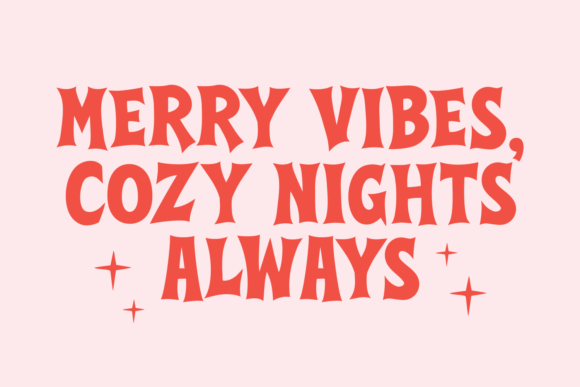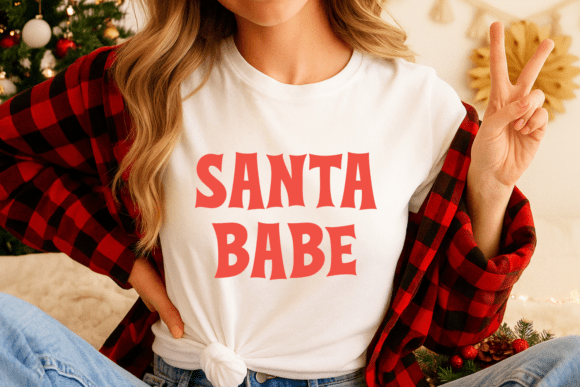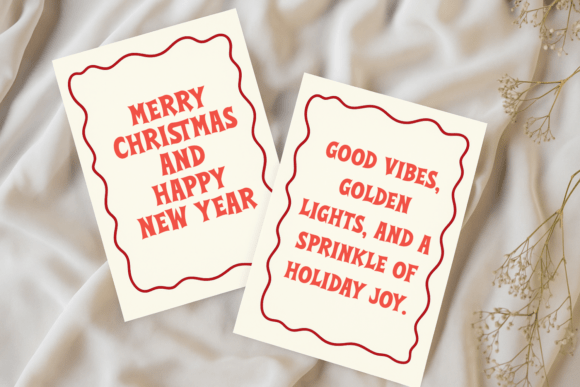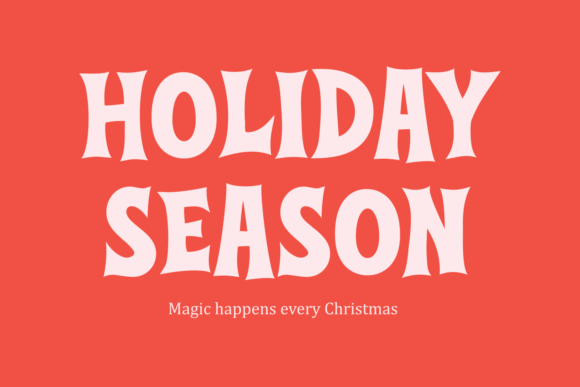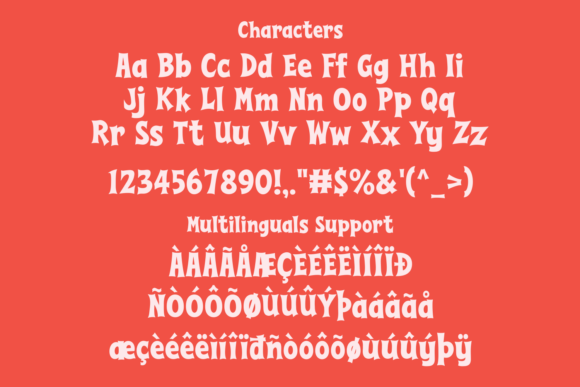
Christmas Dreaming Font: A Playful and Festive Display Font for Holiday Projects
As the holiday season approaches, designers and crafters are on the lookout for the perfect typography to add a touch of magic and nostalgia to their creative projects. If you’re looking for a font that embodies the warmth and joy of Christmas, look no further than the Christmas Dreaming Font. This playful and festive display font is designed to bring a smile to your face and a twinkle to your designs.
What is Christmas Dreaming Font?
Christmas Dreaming is a bold, wavy, and cheerful display font that’s perfect for adding a festive touch to your holiday projects. With its unique and playful shapes, this font is sure to capture the essence of the holiday season. Whether you’re designing Christmas cards, invitations, gift tags, posters, or cozy winter quotes, Christmas Dreaming Font is the perfect choice.
Key Features of Christmas Dreaming Font
- Playful and Festive: Christmas Dreaming Font is designed to bring a touch of playfulness and festivity to your designs. Its bold and wavy shapes are sure to add a cheerful charm to your projects.
- Perfect for Holiday Projects: This font is specifically designed for holiday projects, making it perfect for Christmas cards, invitations, gift tags, posters, and cozy winter quotes.
- Unique and Nostalgic: This font has a unique and nostalgic feel that’s sure to evoke memories of Christmases past. Its playful shapes and bold lines make it a standout in any design.
Uses for Christmas Dreaming Font
Christmas Dreaming Font is a versatile font that can be used in a variety of ways. Here are some ideas to get you started:
- Christmas Cards: Add a personal touch to your Christmas cards with this festive font. Use it for the main text or as a decorative element to add a touch of whimsy.
- Invitations: Create festive invitations for your holiday parties or events with Christmas Dreaming Font. Its playful shapes and bold lines are sure to grab attention.
- Gift Tags: Add a personal touch to your gifts with Christmas Dreaming Font. Use it to create custom gift tags that are sure to delight.
- Posters: Create eye-catching posters for your holiday events or promotions with this festive font. Its bold shapes and cheerful charm are sure to grab attention.
- Cozy Winter Quotes: Add a touch of warmth and coziness to your winter quotes with Christmas Dreaming Font. Its playful shapes and nostalgic feel are sure to evoke a sense of warmth and comfort.
Tips for Using Christmas Dreaming Font
Here are some tips for using Christmas Dreaming Font in your designs:
- Use it Sparingly: While Christmas Dreaming Font is a beautiful font, it’s best used sparingly. Use it as a headline or title font, and pair it with a simpler font for body text.
- Experiment with Colors: Christmas Dreaming Font looks great in a variety of colors, from traditional red and green to more modern colors like blue and purple. Experiment with different colors to find the one that works best for your design.
- Pair it with Other Fonts: Christmas Dreaming Font pairs well with a variety of other fonts, from simple sans-serif fonts to more decorative script fonts. Experiment with different pairings to find the one that works best for your design.
| Font Name | Christmas Dreaming Font |
| Author | Dreamink (7ntypes) |
Christmas Dreaming Font is a playful and festive display font that’s perfect for adding a touch of magic and nostalgia to your holiday projects. With its bold, wavy shapes and cheerful charm, it’s sure to capture the essence of the holiday season. Whether you’re designing Christmas cards, invitations, gift tags, posters, or cozy winter quotes, Christmas Dreaming Font is the perfect choice. So why wait? Download Christmas Dreaming Font today and add a touch of festive fun to your designs!